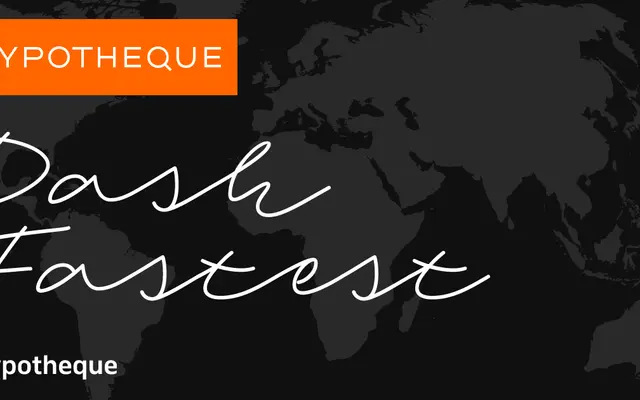
Dash Fastest
Part of Typotheque's Dash system, a large humanist sans family articulated across four stylistic subfamilies and three width tracks from Semiwide to Wide.
Dash Fastest is one of four named sub-styles within the Dash system, each suggesting a different visual tempo from Slow through to Fastest. Across all subfamilies, the system offers 18 styles per sub-family spanning Hairline to Bold in standard, Semiwide and Wide widths. Individual styles are named after world cities, and a variable font edition is available via the Dash Casual Variable subfamily.
Dash Fastest belongs to the Dash system, a multi-subfamily humanist sans with speed-inflected stylistic variants and an extensive range of widths, suggesting a humanist sans design language with expressive variation across optical moods.